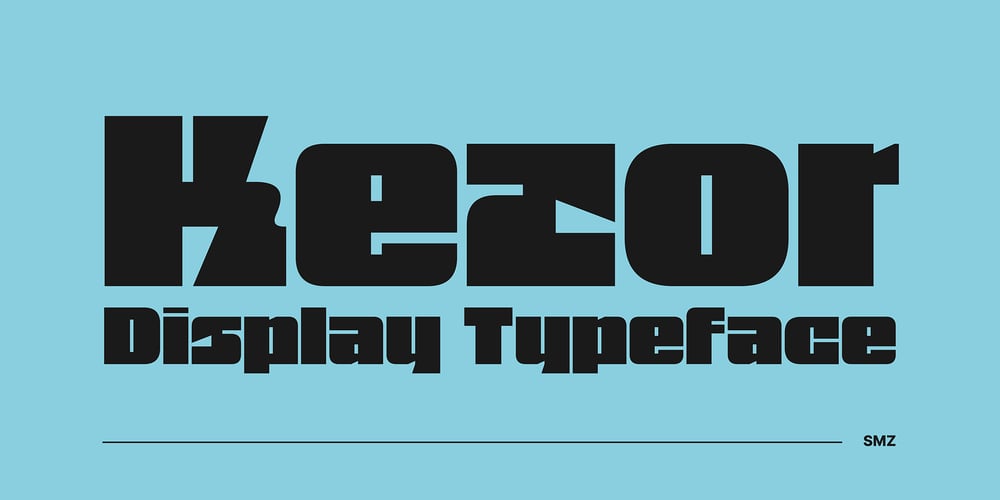
Kezor Font Family was designed by Szymon Mandziarz and published by SMZ Design. Kezor contains 1 styles and family package options. Kezor is a modern and experimental font, distinguished by its geometric bold structure. Optimally simplified with expressive diagonal and rounded accents.The font goes perfectly with graphic designs with an intriguing style.The font will work well in poster design, branding, logo design, and clothing branding.